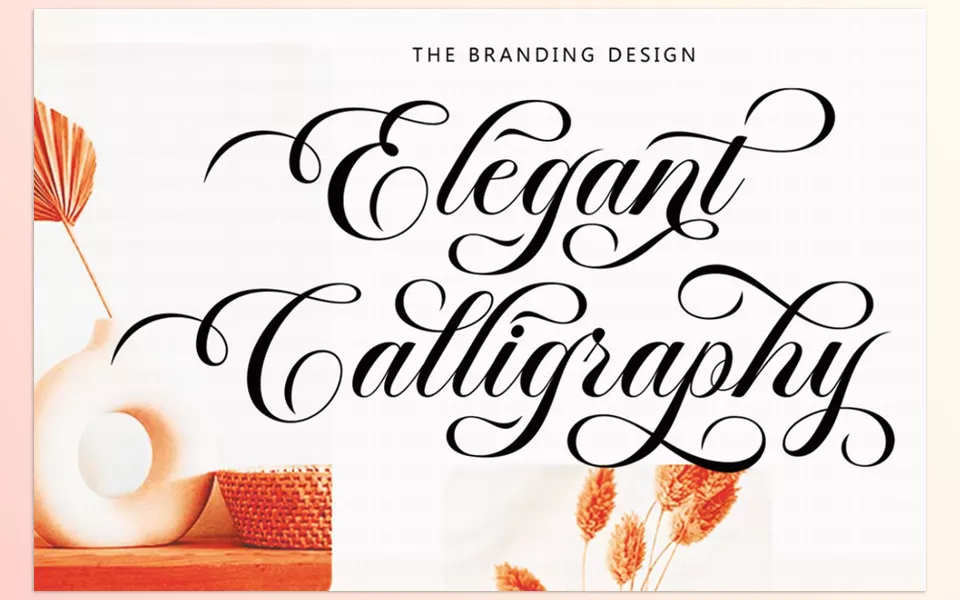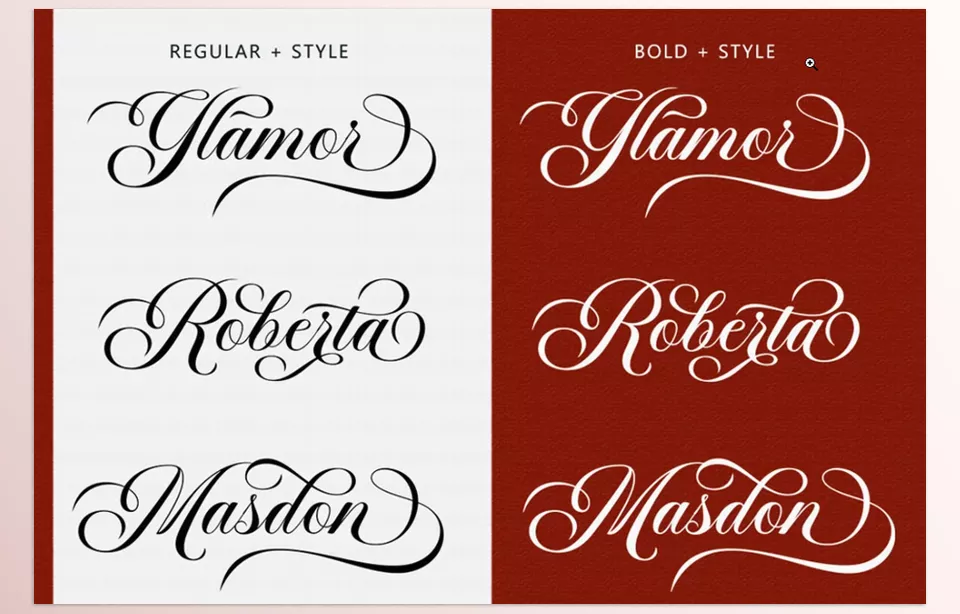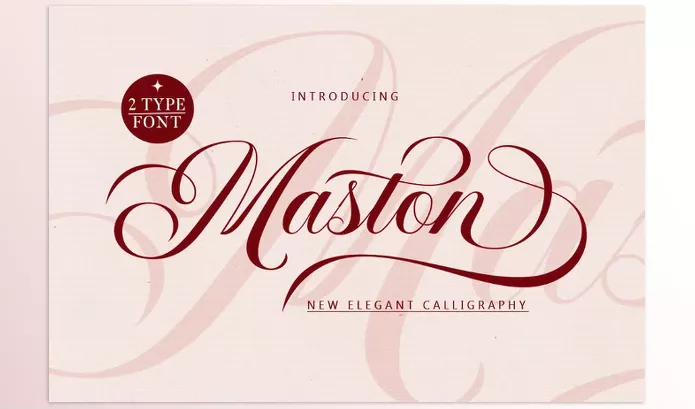
Creative Market – Maston is a sophisticated typeface that combines old-style copperplate features with a modern twist. Its luxury features like graceful character joins and refined design makes it perfect for formal and fashionable use, while also ensuring that the text is easy to read and capture attention.
Mastertype – Maston Features
• Elegant Design: Preserves the harmony of copperplate design style and contemporary look.
• Versatile Usage: Suits any occasion, including invitations, logos, fashion and makeup.
• Complete Font Set: Comprises all alphabet characters, including uppercase, lowercase, alternates, numbers, and punctuation.
• Multilingual Support: Supports many languages and is, therefore, more useful on a global scale.
• Luxurious Letter Connections: Softens harsh edges while maintaining advisable legibility and proportions in spacing.
• Attention to Detail: Ensured polished appearance and crafted with precision detail for stunning elegance.
Image 1: Maston Script Font adds elegance and sophistication to designs suitable for premium brand marketing.
Creative Market - Maston - Maston Script Font adds elegance and sophistication to designs suitable for premium brand marketing.
Image 2: For lasting impressions, transform ordinary invitations with Maston Script Font for elegance and sophistication.
Creative Market - Maston - For lasting impressions, transform ordinary invitations with Maston Script Font for elegance and sophistication.